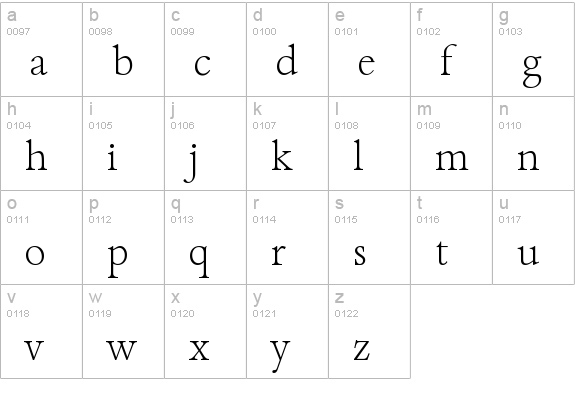
BambergSerial-Xlight-Regular is the standard, neutral variant in the BambergSerial typeface family \xE2\x80\x94 well suited to general body text, paragraphs, and standard typographic work.
BambergSerial-Xlight-Regular is a modern and elegant font that exudes sophistication and style. With its clean lines and sleek appearance, this typeface is perfect for a wide range of design projects, from branding to editorial design. The lightweight design of BambergSerial-Xlight-Regular gives it a delicate and refined look, making it ideal for adding a touch of elegance to any project. This font is freely available to download at FontsMarket.com, making it accessible to designers and creatives looking for a versatile and high-quality typeface to enhance their work. Whether you're creating a logo, designing a website, or working on a print publication, BambergSerial-Xlight-Regular is sure to make a strong impression with its timeless appeal and modern aesthetic. Download BambergSerial-Xlight-Regular today from FontsMarket.com and elevate your designs with this beautifully crafted and versatile font.